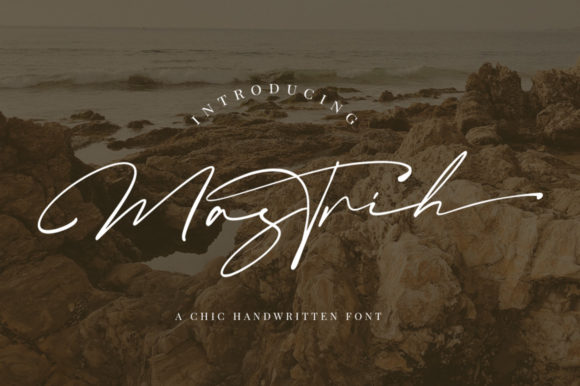
In today's fast-paced technological world, we are constantly bombarded with digital information. Our eyes crave elegance and sophistication amidst the vast sea of pixels. Introducing Mastrih, the digital ink that breathes life into your digital creations, leaving an indelible mark on your audience.
Mastrih, a breathtakingly beautiful script font, is the brainchild of Vultype, a renowned foundry renowned for its exquisite typographic artistry. This font isn't just a collection of letters; it's an expression of grace and style, a dance of curves and strokes that will captivate your audience.
Crafted with meticulous care, Mastrih's elegant thin letters exude a timeless allure, perfect for adding a touch of refinement to logos, branding, and social media posts. Each glyph, meticulously designed and carefully spaced, carries the weight of history and the promise of innovation.
Mastrih's versatility extends far beyond its aesthetic appeal. Its PUA encoding unlocks a treasure trove of possibilities, granting you effortless access to a vast array of glyphs and swashes. Unleash your creativity and let Mastrih guide you towards design excellence.
Whether you're a seasoned designer seeking to elevate your projects or a budding entrepreneur embarking on a new venture, Mastrih is your constant companion. Its timeless beauty and adaptability make it the perfect choice for a wide range of applications. Embrace the power of Mastrih and embark on a journey of visual storytelling that will leave your audience spellbound.